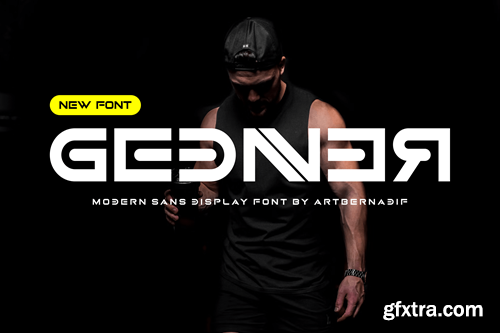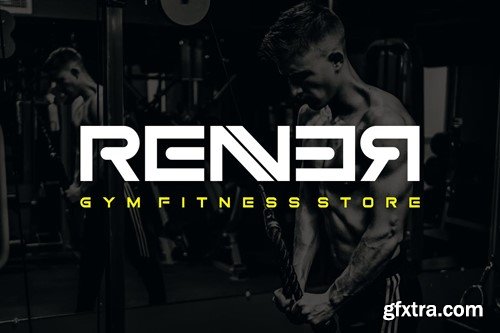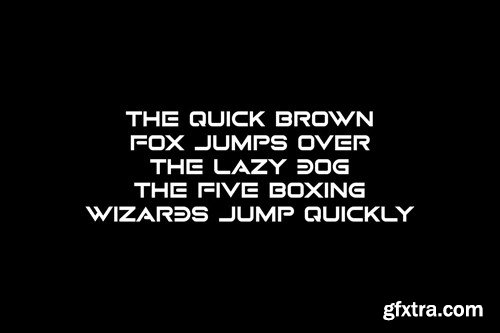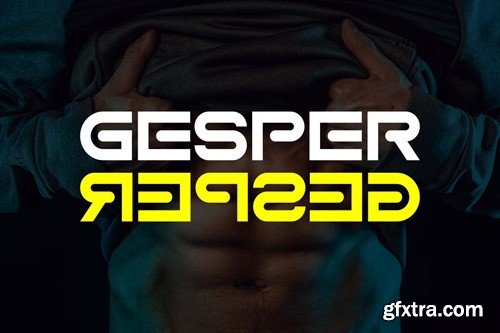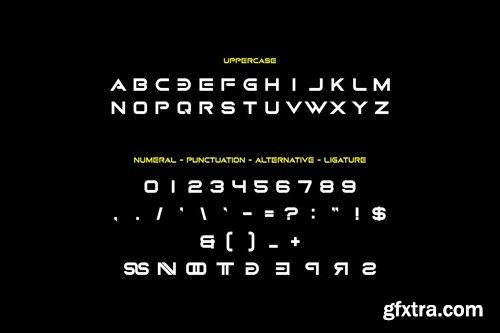
Gednner - Modern Sans Display Font FRMDNQS
Gednner - Modern Sans Display Font
Introducing our new product Gednner Font Modern Sans Display Font
Gednner Font Modern Font is a bold and authentic display font. The font is suitable for any branding project like logo, t-shirt printing, esport, and many more. outstanding in a wide range of contexts.
• Gednner Uppercase
• Gednner Ligature
• Gednner Alternative